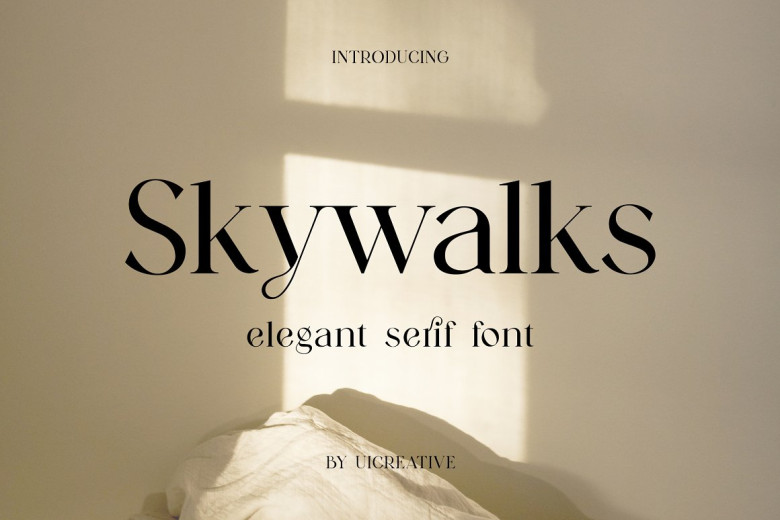
Skywalks Font
Skywalks Elegant Serif Font is our latest product. This modern serif font exudes classy elegance that can be used in various projects such as magazine covers, book covers, wedding invitations, typography quotes and clothing designs.
Skywalks Elegant Serif Font